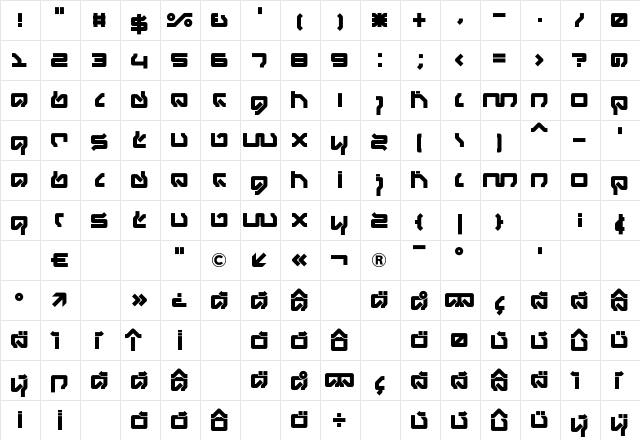
DS Mufdi Regular
Design Context for DS Mufdi Typeface
DS Mufdi is a composed and adaptable typeface that performs quietly and consistently across a wide range of design contexts.